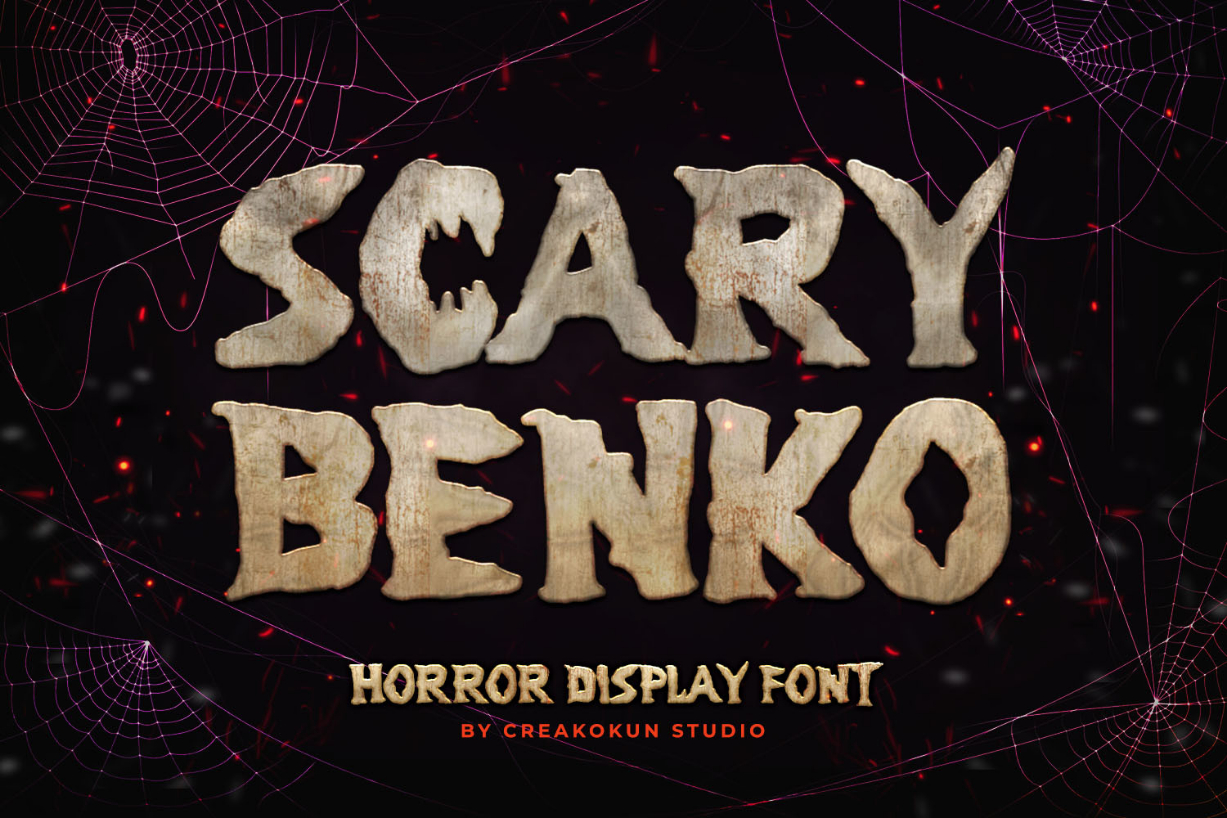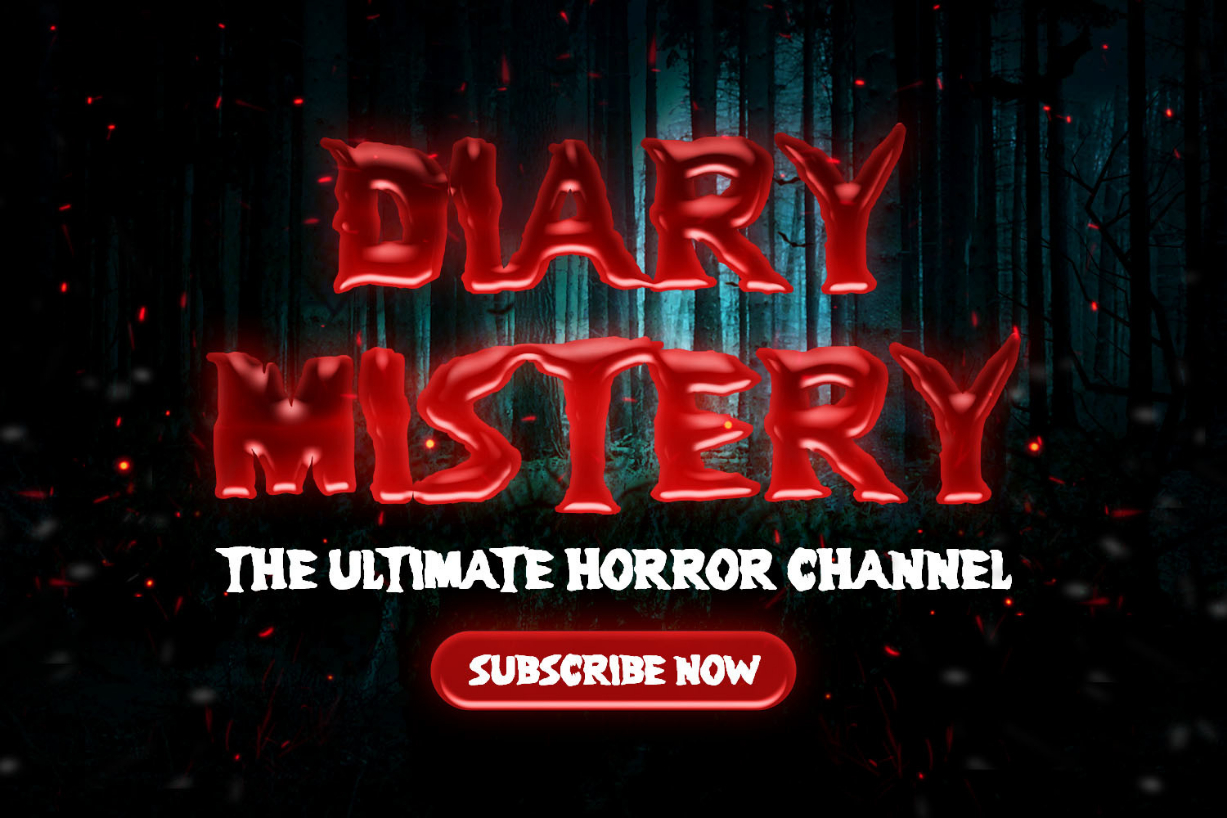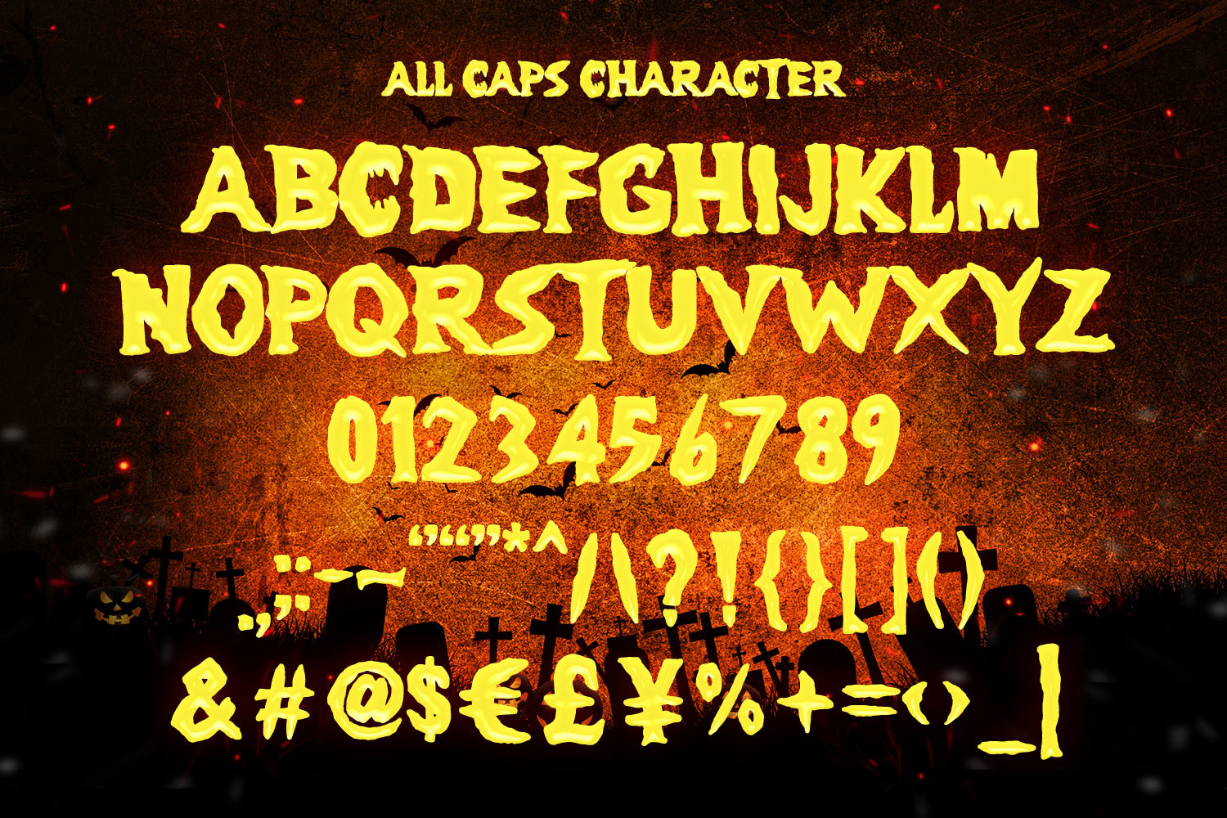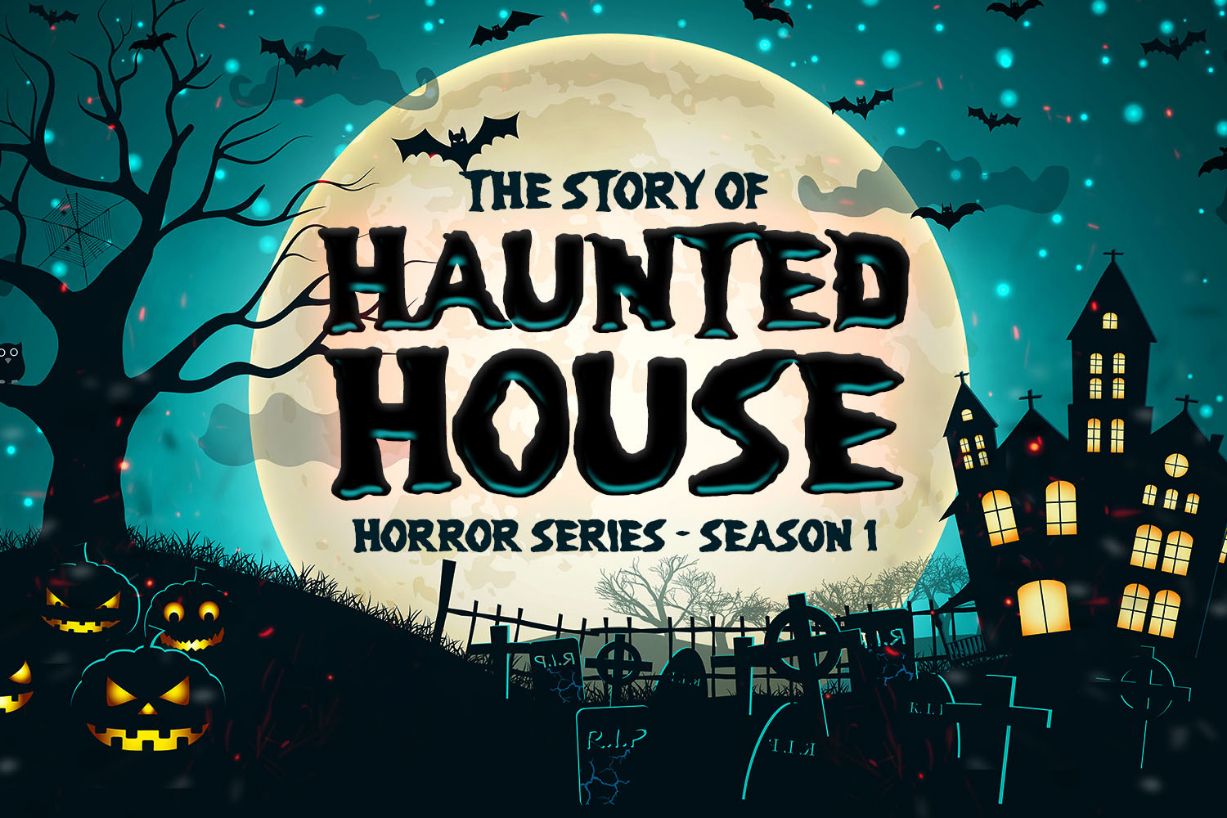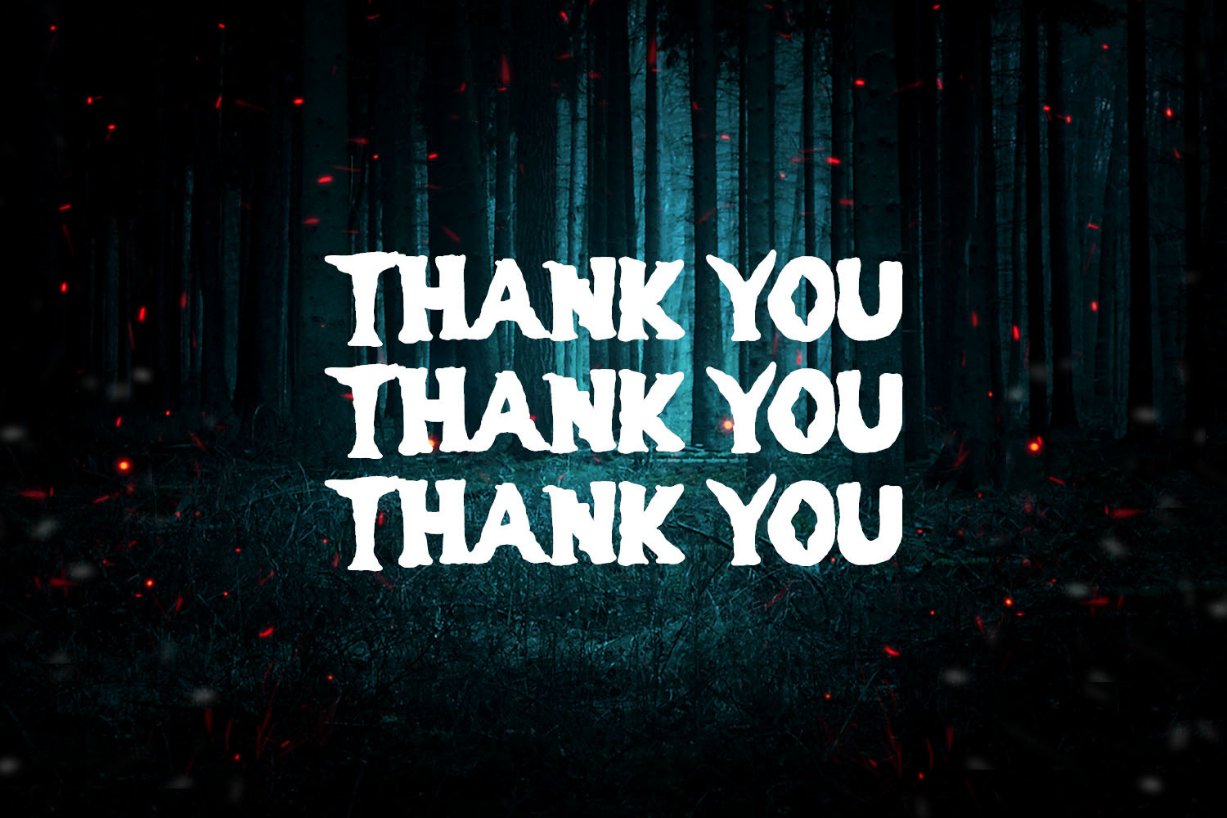
Scary Benko Font
About Scary Benko Font
Scary Benko is a dramatic, thick lettered and horror-looking blackletter font. It’s perfect for Halloween crafts, horror movie posters, t-shirts and anything else that needs to look spooktacular!